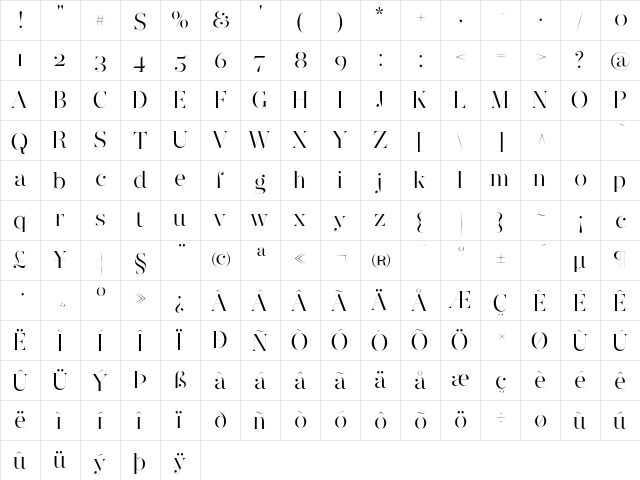
NarzissRegular Regular
| Foundry | Hubert Jocham |
| Designer | Hubert Jocham |
Design Context for NarzissRegular Typeface
NarzissRegular takes a measured approach to typography — its balanced proportions and neutral character make it a reliable workhorse for both digital and print work.